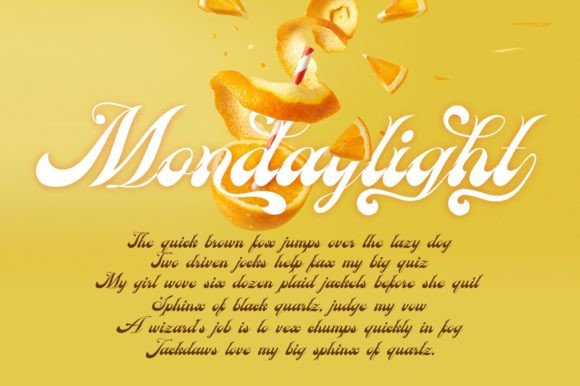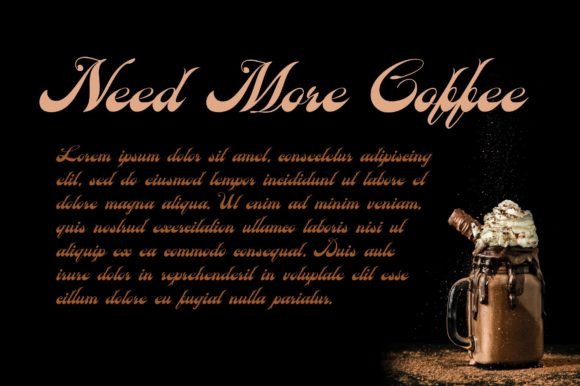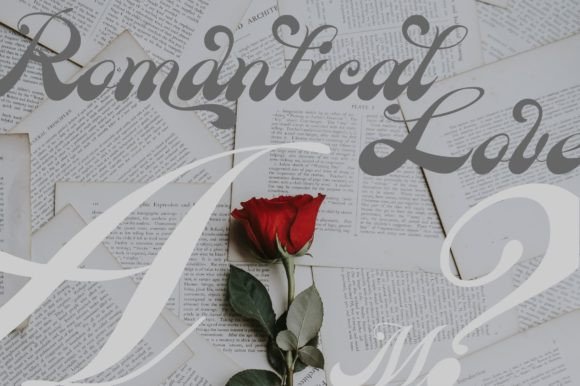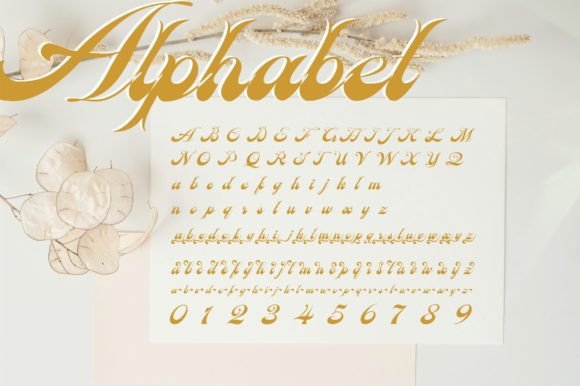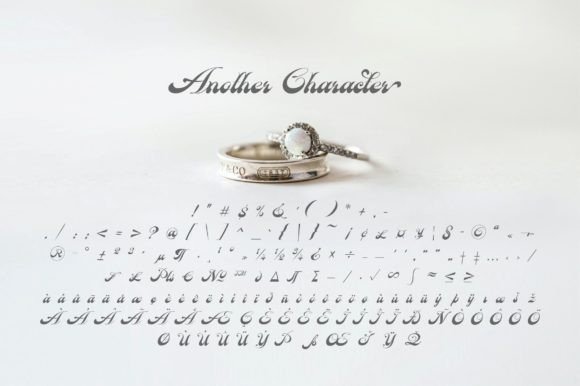
Exotex Font
About Exotex Font
“Exotex” is a beautiful and bold handwritten font that brings a sense of elegance and prominence to a variety of design applications. This versatile font is well-suited for branding, headlines, magazine layouts, invitations, and more. Incorporating “Exotex” into your creative projects has the potential to make them truly elegant and outstanding.
One of the standout features of “Exotex” is its PUA encoding, which grants you easy access to a wide array of glyphs and swashes. This feature enhances your creative freedom, allowing you to personalize and embellish your designs with ease, ensuring they stand out with a unique and customized touch.
With its bold and stylish handwritten appearance, “Exotex” adds a sense of flair and sophistication to your text. Whether you’re crafting a brand identity, designing attention-grabbing headlines, curating magazine content, or creating elegant invitations, this font is a versatile choice that can elevate your projects.
By incorporating “Exotex” into your design work, you can infuse your projects with a touch of elegance and make them truly outstanding. Its bold and beautifully crafted style leaves a lasting impression on your audience. Whether you’re a professional designer or someone passionate about creative expression, “Exotex” is a font that can help you achieve your design goals with grace and impact.